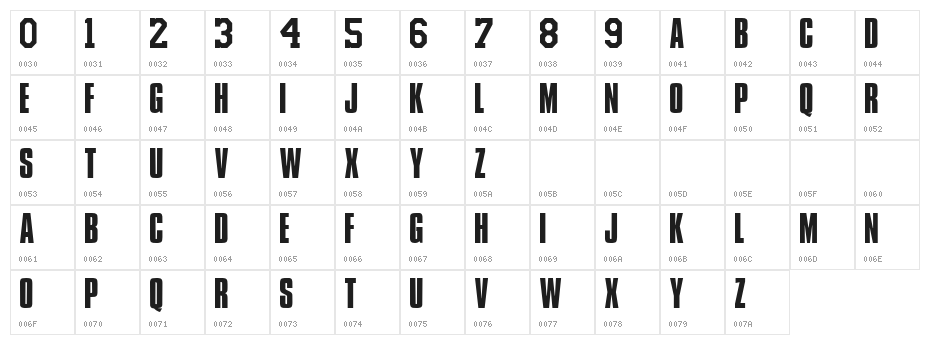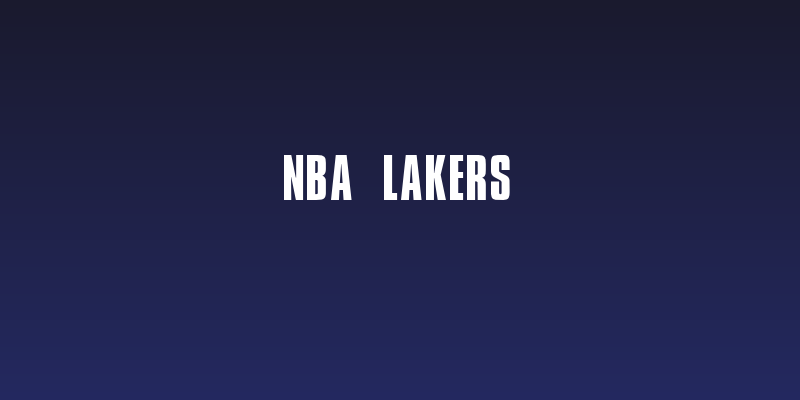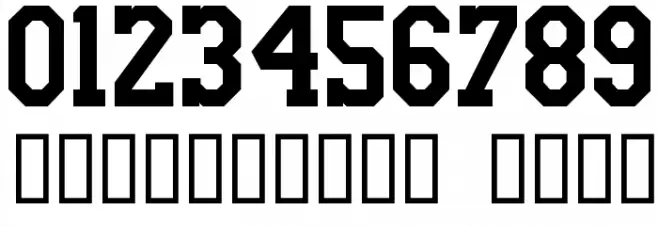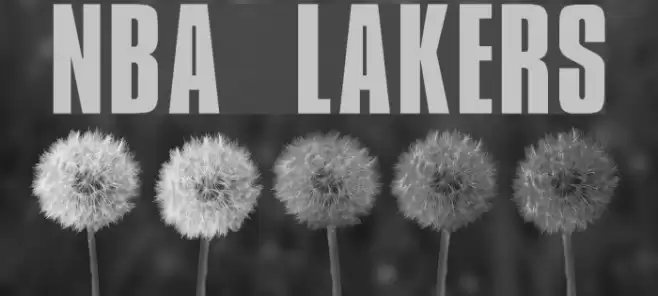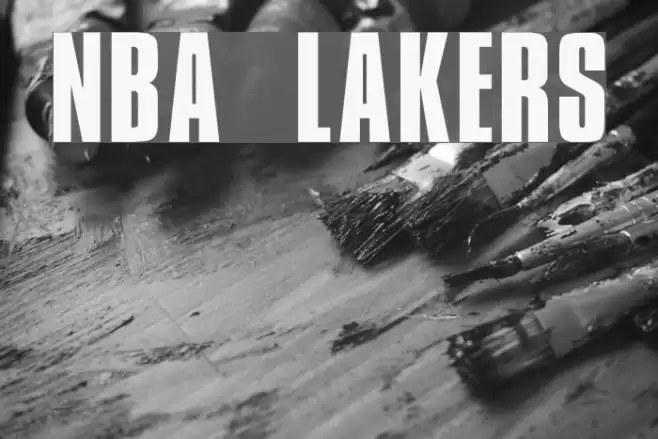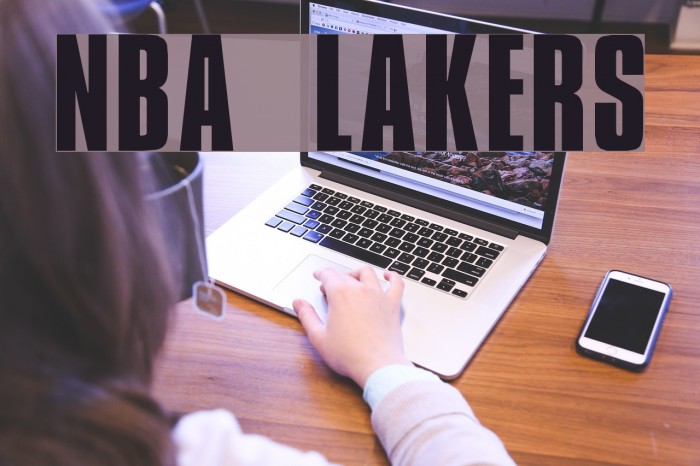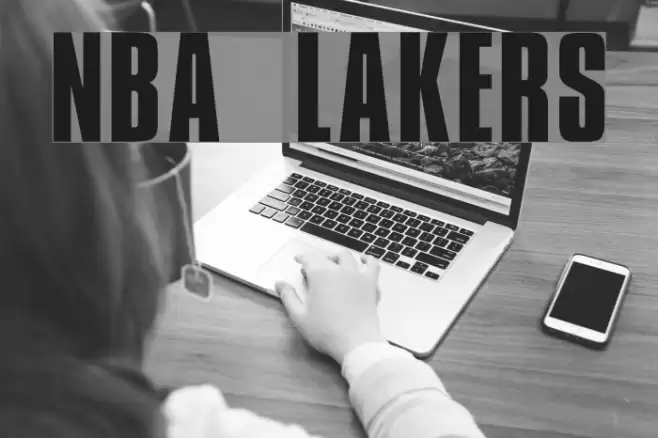
NBA Lakers Font
NBA Lakers Description
This font features bold, blocky characters with a strong presence, ideal for making a statement. The uppercase letters are tall and imposing, with a uniform stroke width that conveys strength and stability. The numbers share the same bold characteristics, ensuring consistency across different uses. The font lacks lowercase letters and special characters, focusing on a straightforward, impactful design. Its geometric shapes and clean lines make it suitable for sports-related themes or any project requiring a bold, assertive typeface.
| Proposed Projects | Ideal for sports branding, team jerseys, posters, and any design needing a bold, impactful typeface. |